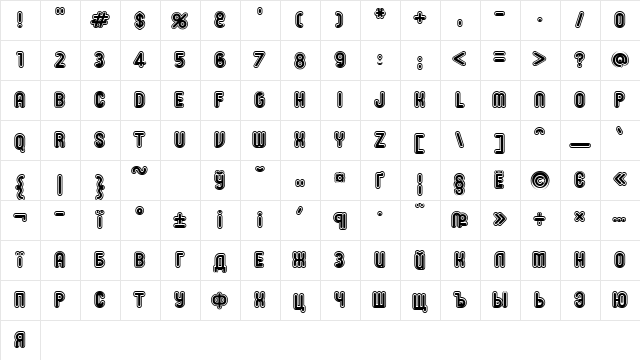
RonInsetE Extra Bold Font Preview
RonInsetE Extra Bold
Design Context for RonInsetE Typeface
RonInsetE is a composed and adaptable typeface that performs quietly and consistently across a wide range of design contexts. The heavy weight commands attention and anchors typographic hierarchies.